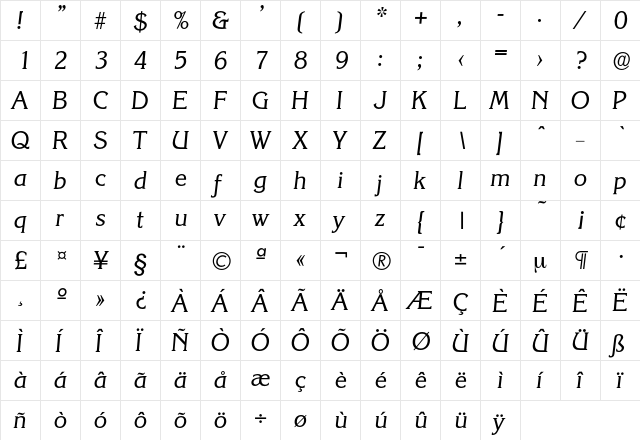
Korinth-RegularIta Regular Font Preview
Korinth-RegularIta Regular
Design Context for Korinth-RegularIta Typeface
Korinth-RegularIta offers clean, dependable letterforms without strong stylistic allegiance, making it a practical choice for designers who need flexibility.
Pro Tip: Use Korinth-RegularIta in both headline and body roles to test its range before committing to a single application.